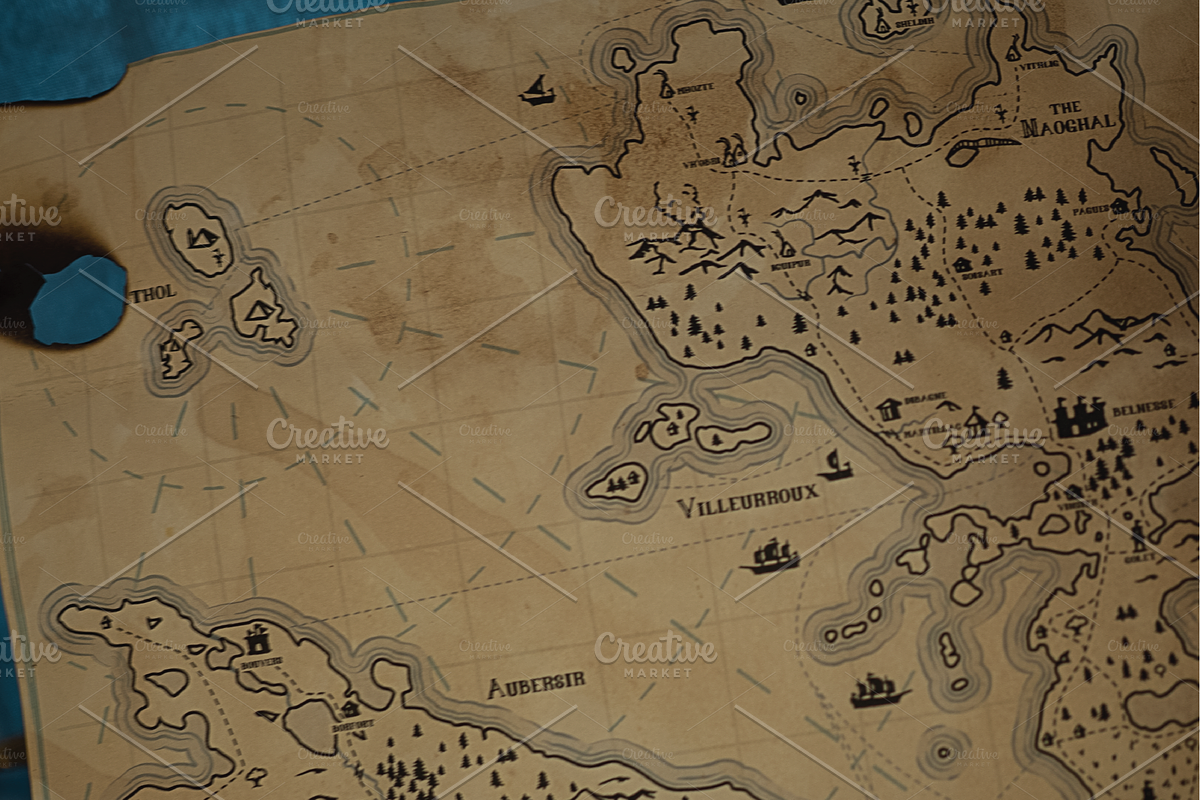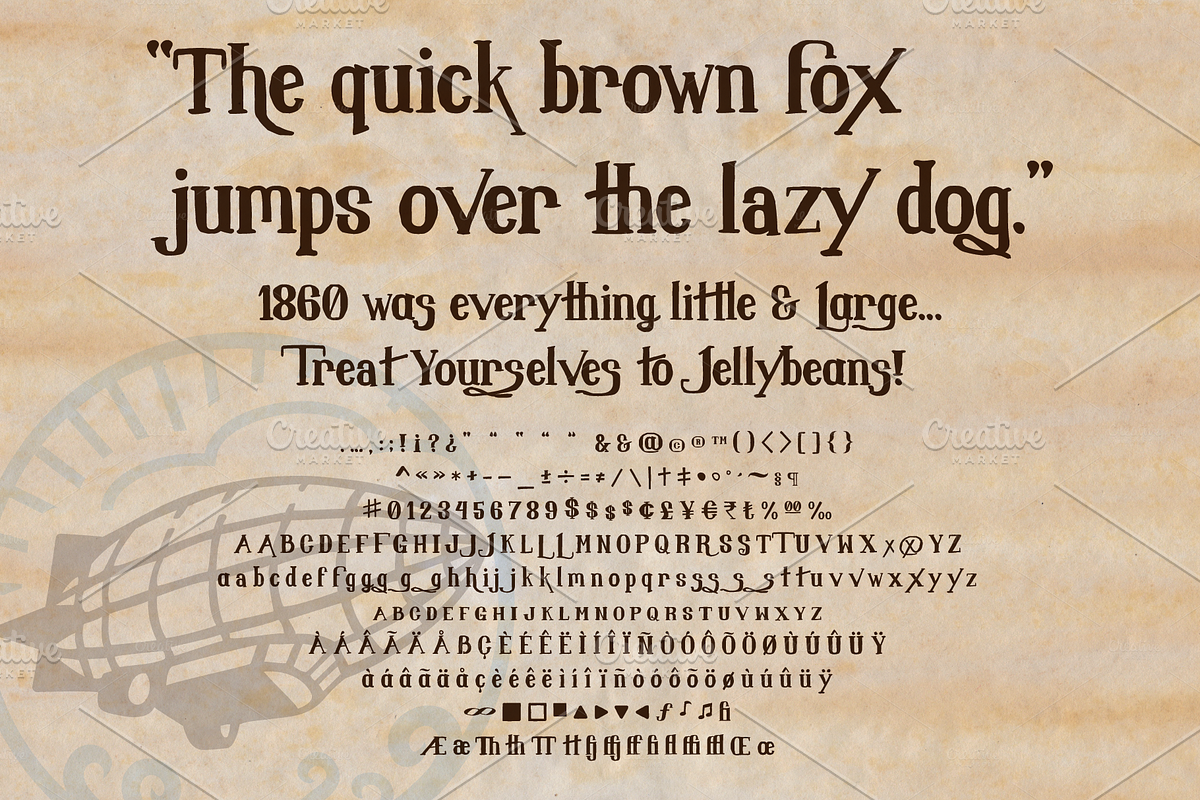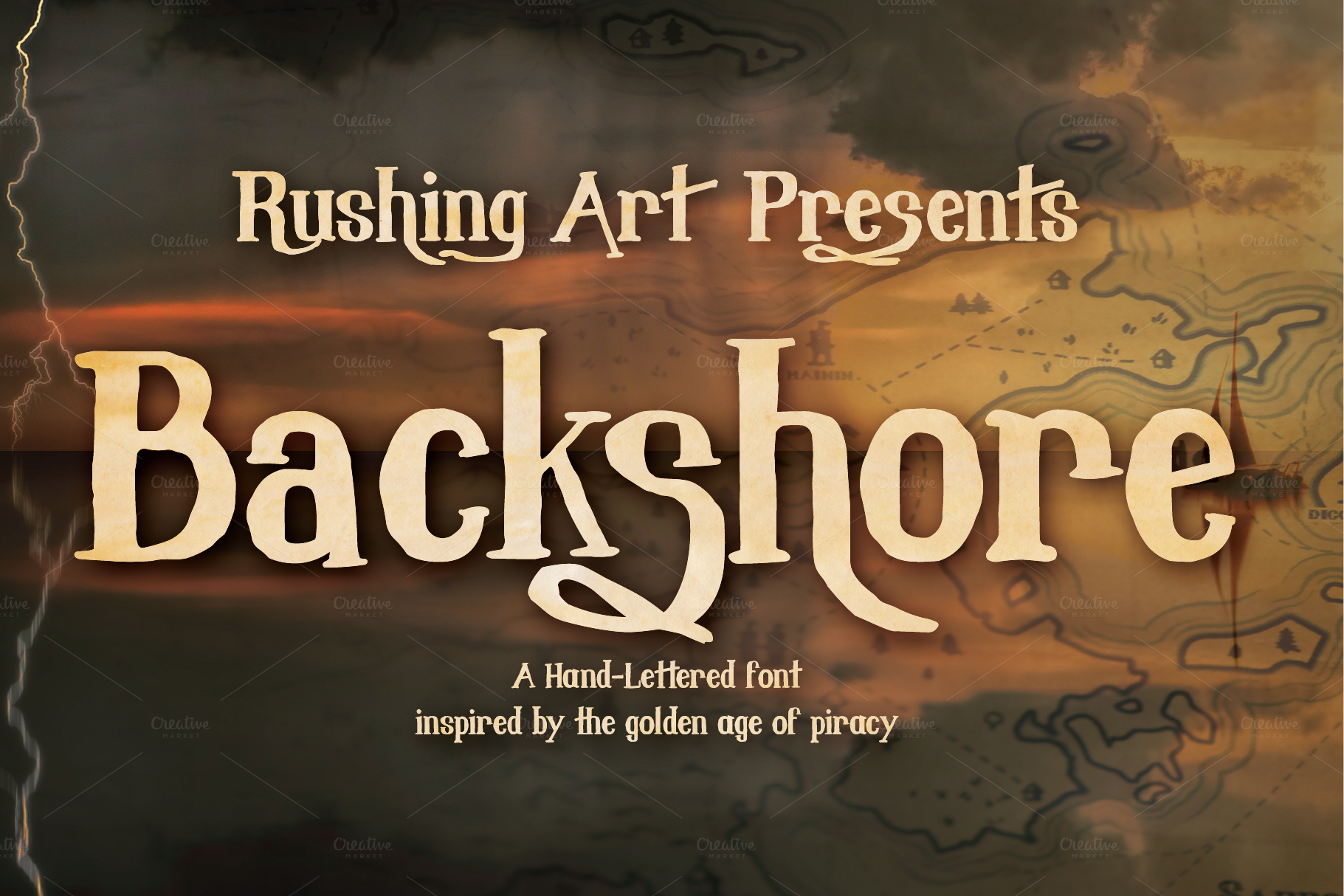
Backshore Hand Lettered Display Font
Inspired by the the fantastic worlds of pirates and adventurers, Backshore is a versatile and whimsical display font with the flexibility for stylized body copy as well. Perfect for map making in your DnD campaign, invitations for your themed party, or sending a thank you letter to your spooky friends.
Not only does Backshore feature all the standard glyphs from lowercase and capitals to numbers and punctuation, but there are several alternate characters and ligatures to play with and customize your type setting.